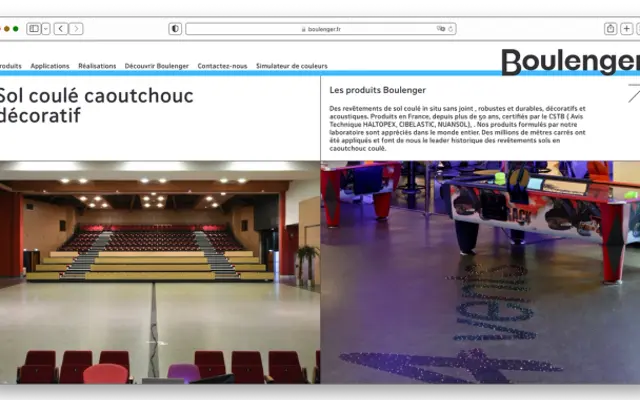
Baldinger
A contemporary neo-grotesque by André Baldinger that sits between Akzidenz Grotesk's roughness and Helvetica's coolness, across seven carefully graduated weights.
Designed by André Baldinger and released in 2022, the family spans fourteen styles from an exceptionally fine ExtraHairline (5-unit stroke) through to Heavy, each with matching italics. Uppercase letters are drawn slightly narrower than convention to improve economy in both text and sign systems, while small caps, discretionary ligatures and an extensive set of OpenType stylistic alternates give it considerable typographic depth. The result sits within the Swiss neo-grotesque tradition without being a revival, carrying enough personality to avoid the blankness of Helvetica.
Explicitly described as a contemporary neo-grotesque connected to the Swiss school and International Typographic movement, sitting between Akzidenz Grotesk and Helvetica in texture and warmth.